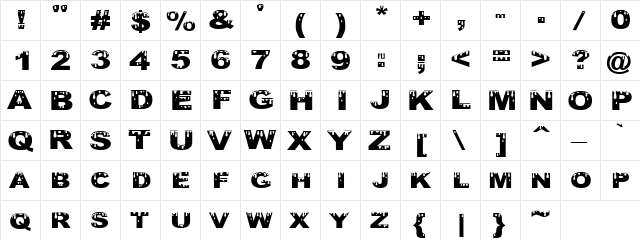
Oozing Saliva Regular
Design Context for Oozing Saliva Typeface
Oozing Saliva is a composed and adaptable typeface that performs quietly and consistently across a wide range of design contexts.